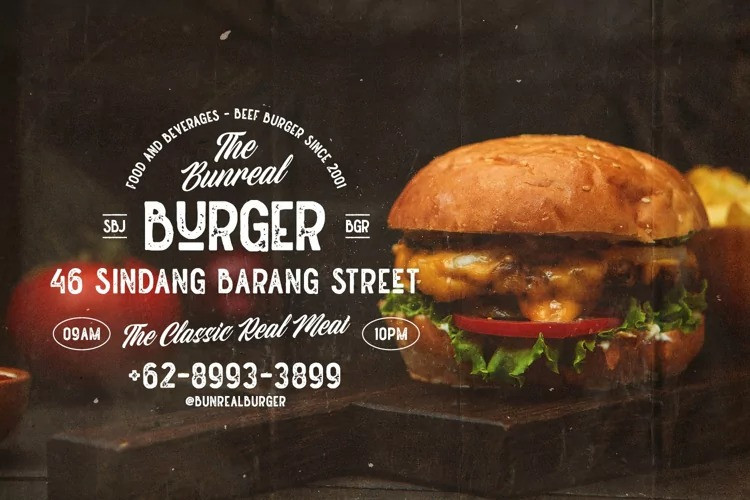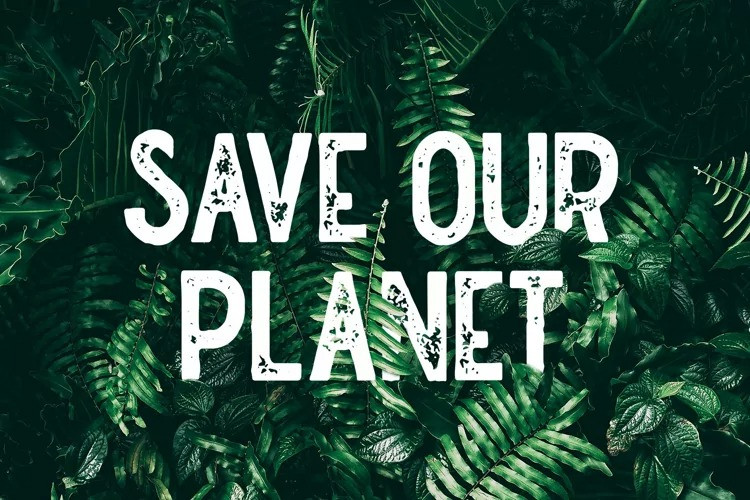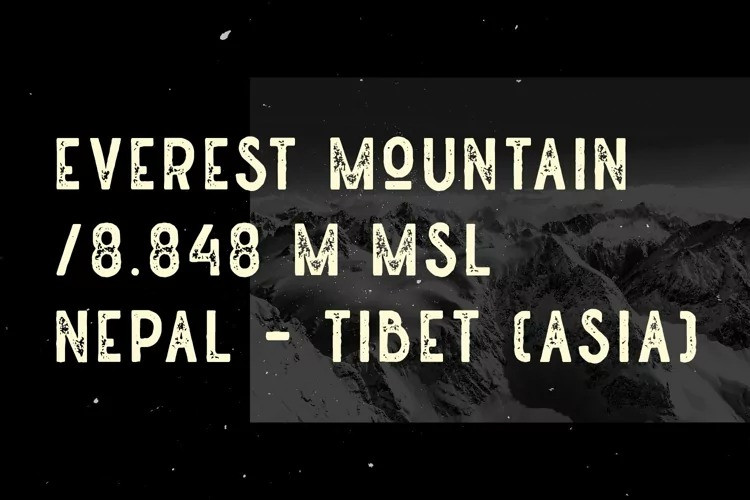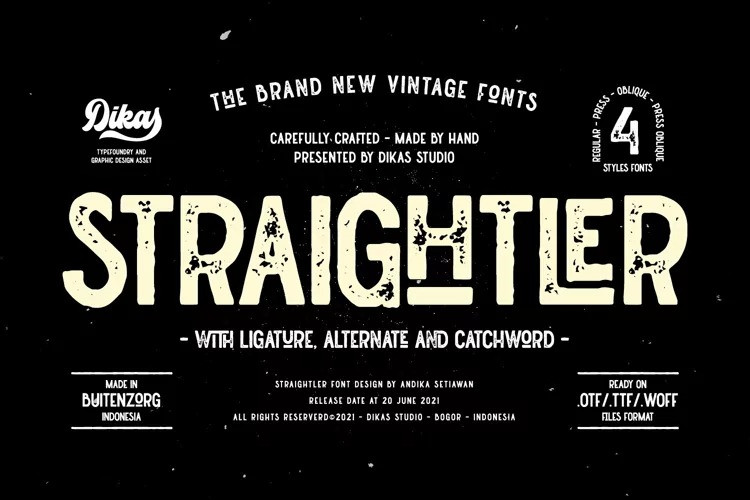
Straightler Display Font
This font there are 4 characters. Made with very serious With Texture and effect grunge make to make this font look vintage So perfect for your need. Straightler come with four fonts styles regular, press, oblique and oblique press. Straightler basicly is allcaps font but they have some alternate character, ligature and catchword to make your design more stunning. Suitable and applicable to create typography design, branding, logos, product packaging, invitation, qoutes, t-shirt, label badge poster etc.